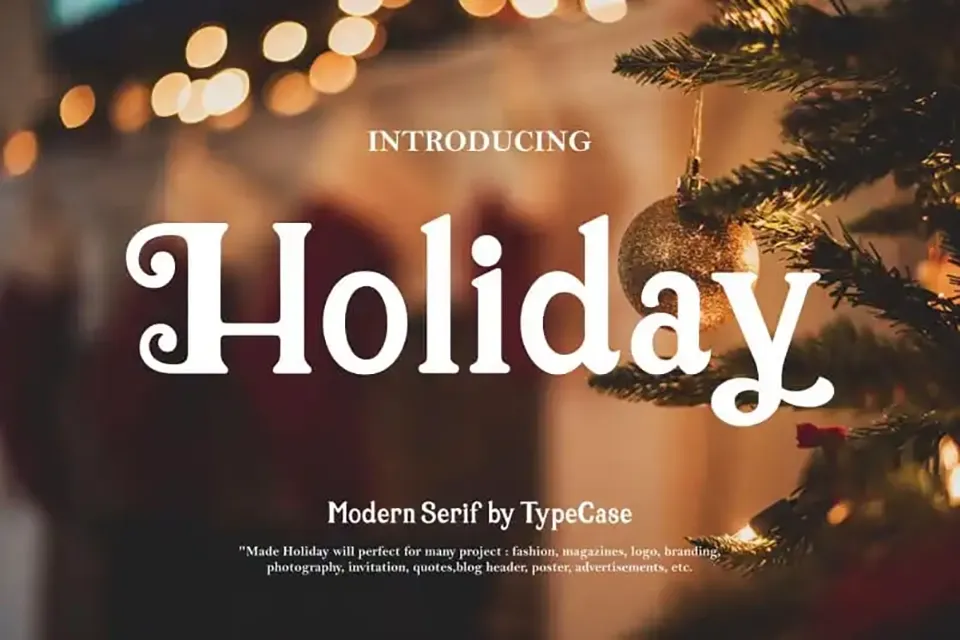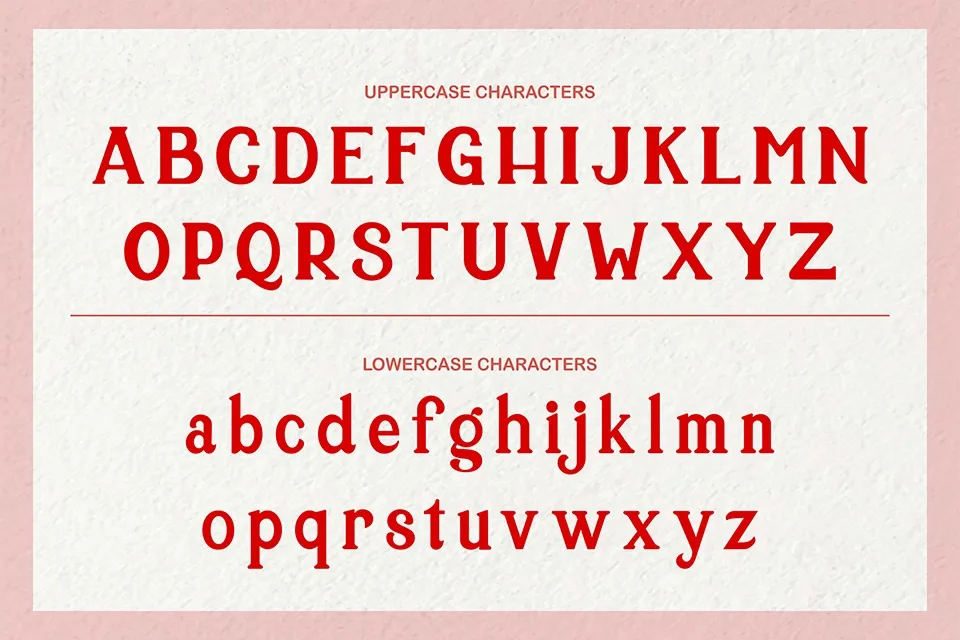
Holiday Serif Font
Holiday Serif Font is a modern and elegant typeface designed to bring sophistication and charm to your creative projects. With its stylish curves and refined details, this serif font is perfect for fashion, magazines, logos, branding, photography, invitations, and more. Its versatility allows it to adapt seamlessly to both professional and artistic designs, making it ideal for quotes, blog headers, posters, and advertisements. Holiday Serif Font combines timeless aesthetics with a contemporary flair, ensuring your work stands out with a polished and festive touch. Elevate your designs with Holiday Serif Font—a perfect blend of beauty and functionality!